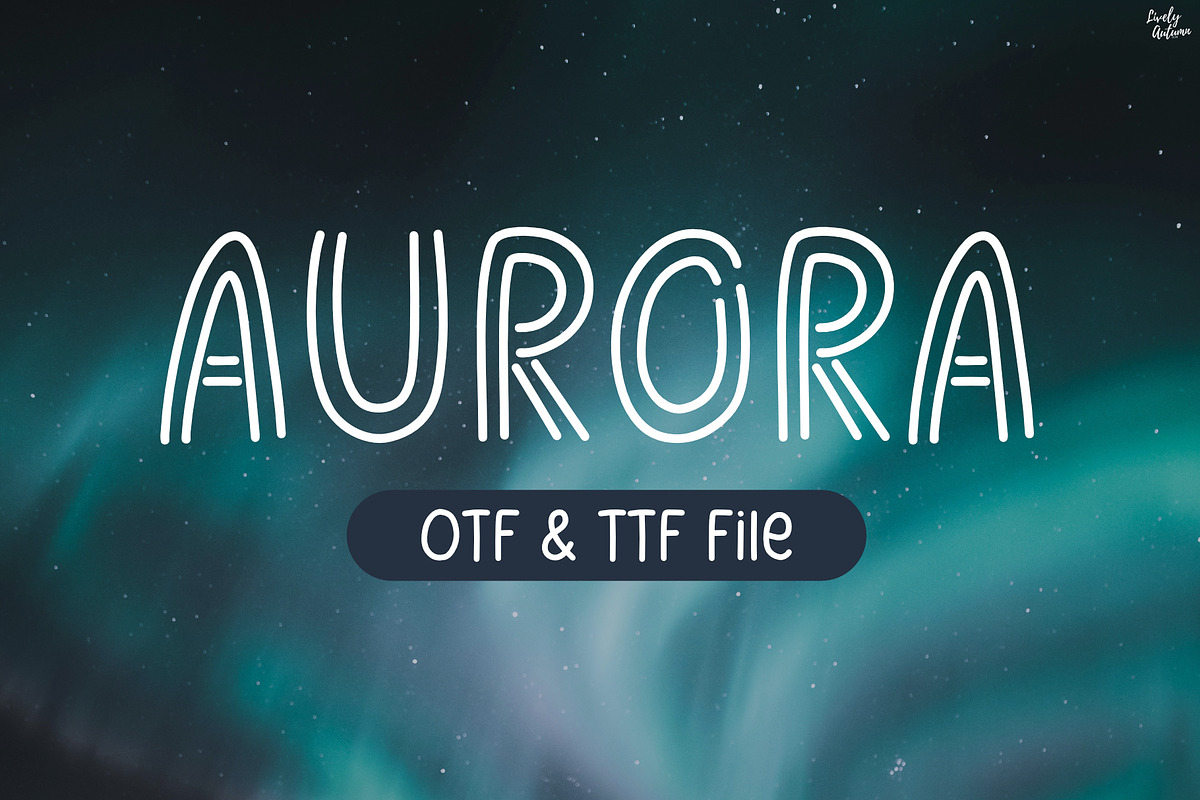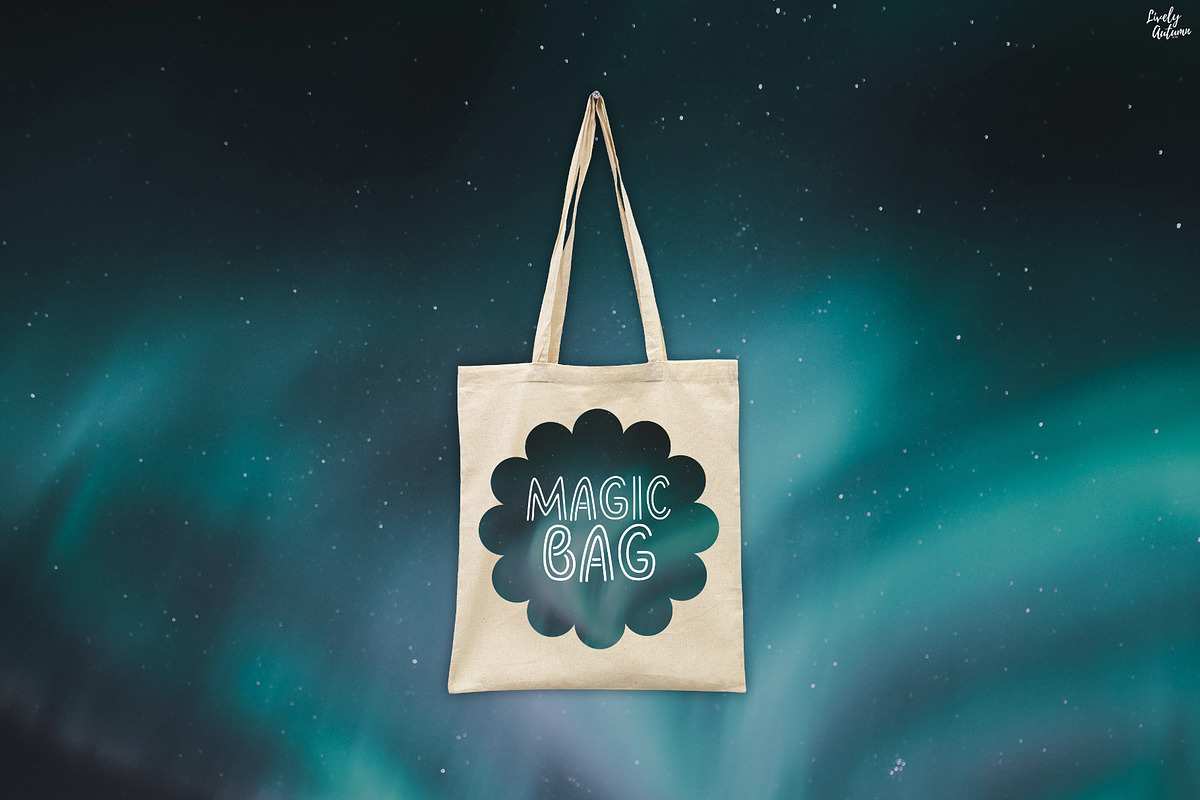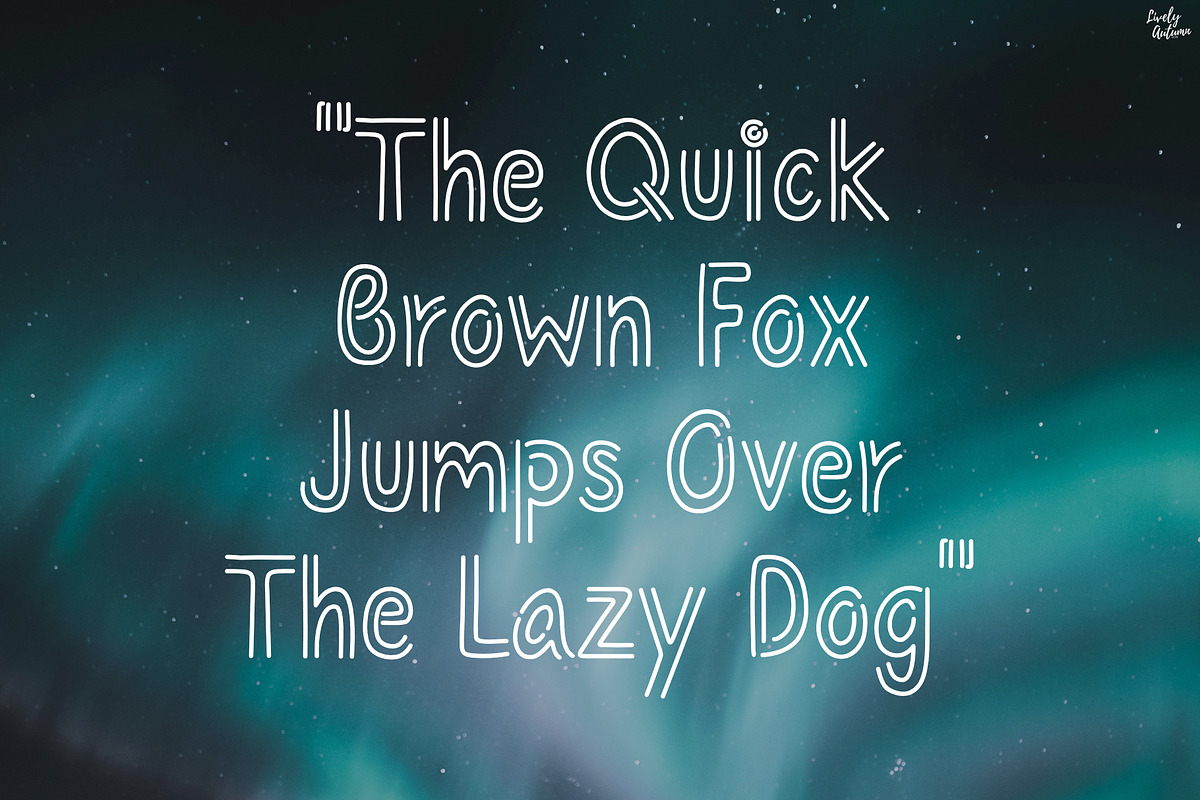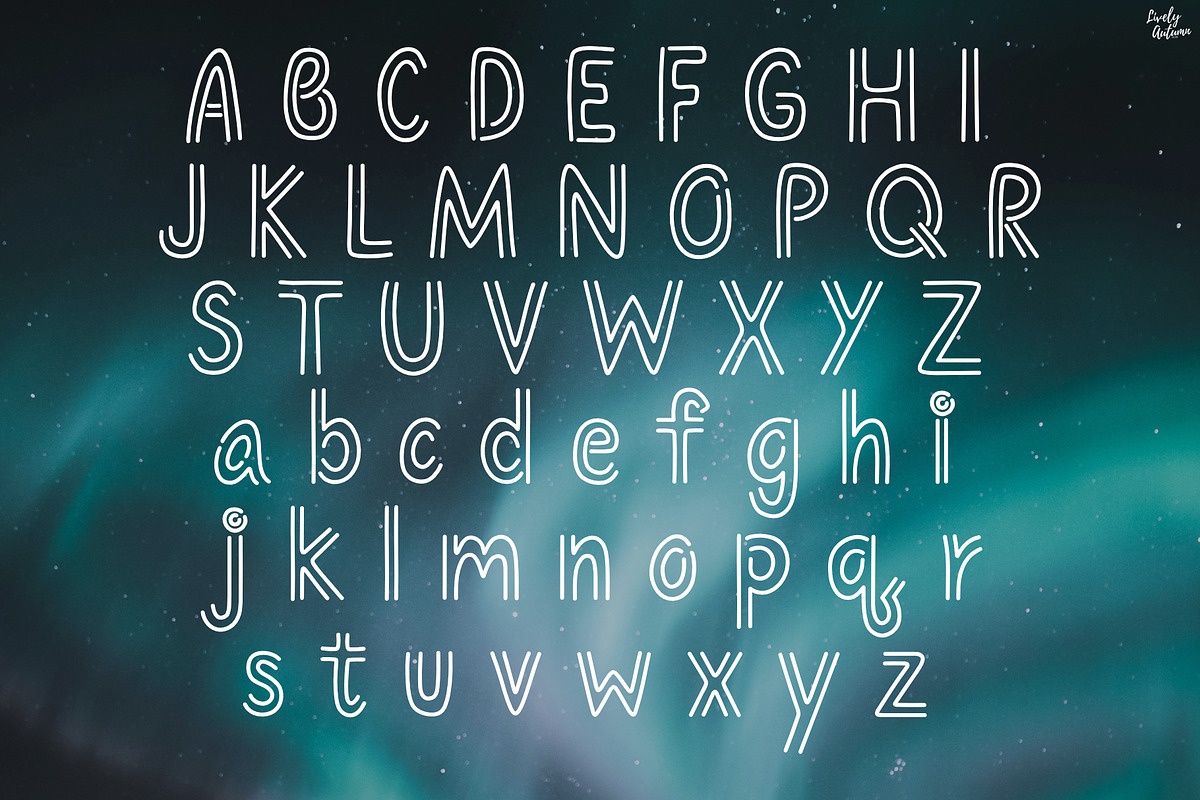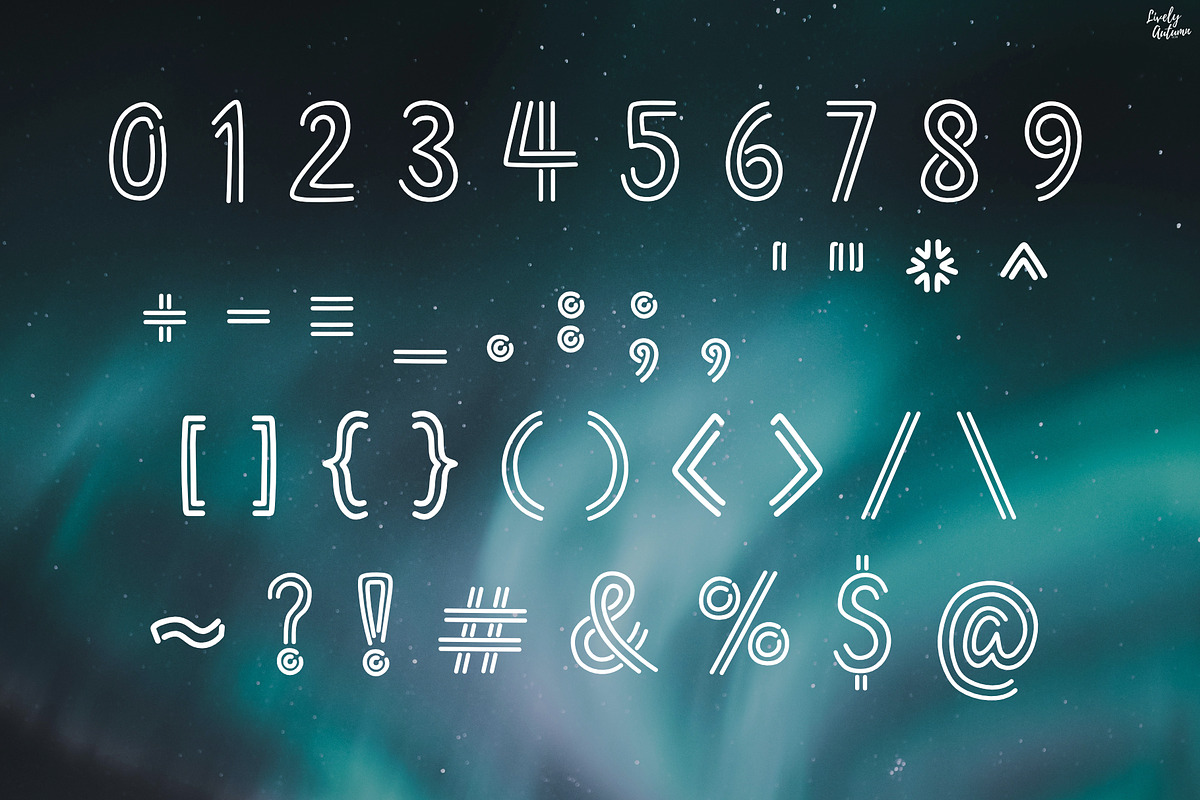
Aurora | Duo line style handwriting
Aurora font is a handwritten font with a double line style. Perfect for your personal projects and various projects. From invitations to posters, social media graphics, journals, stickers and much more.
- Font includes: uppercase, lowercase, numbers, and punctuation